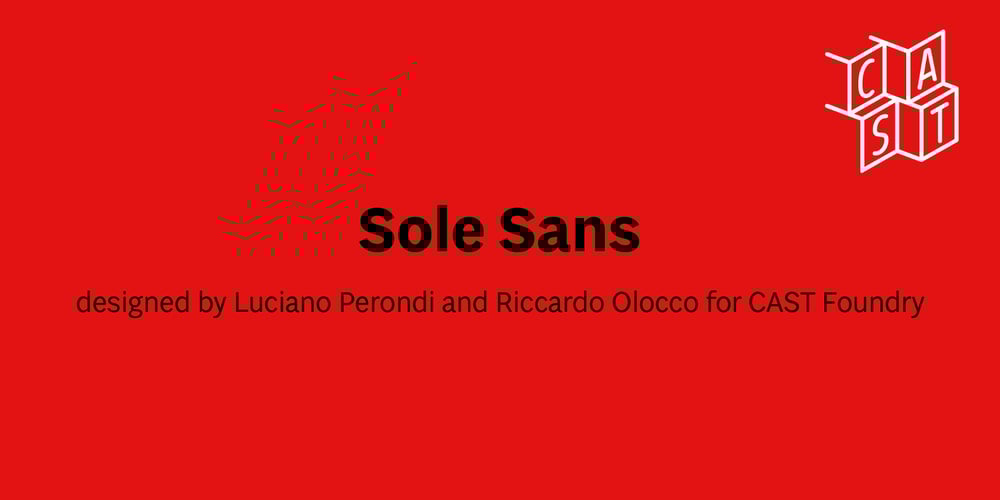
Sole Sans Font Family was designed by Riccardo Olocco, Luciano Perondi and published by CAST. Sole Sans contains 74 styles and family package options. Sole Sans, companion to Sole Serif, is a newspaper sanserif available in a wide range of weights and styles. It’s a workhorse, suitable for headlines, diagrams, graphics and tabular work. Contrast at the junctions between arches and stems is a feature of early 19th-century sanserifs which inspired Sole Sans. It was originally designed for the leading Italian financial newspaper Il Sole 24 ore.